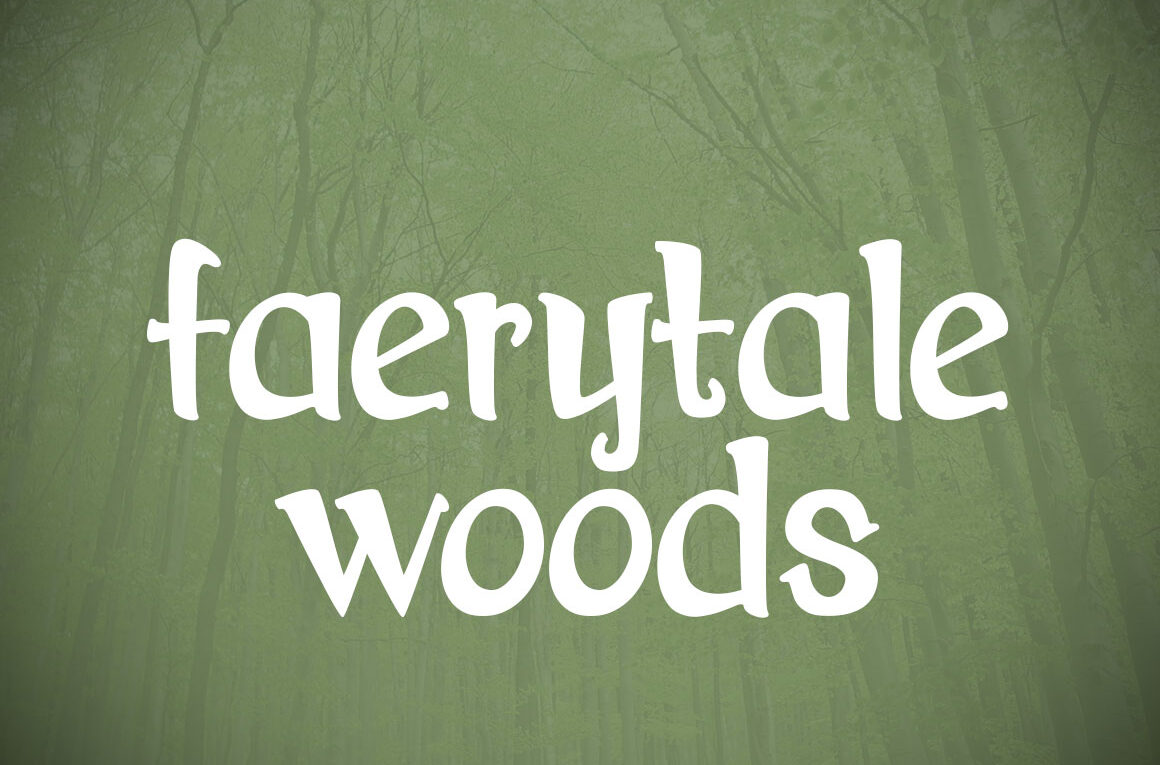
Introducing Faerytale Woods: A Whimsical Storybook-Inspired Font
Are you looking for a font that can transport your readers to a magical world of wonder and enchantment? Look no further than Faerytale Woods, a storybook-inspired font that’s perfect for all your ‘once upon a time’s’. This charming font is designed to evoke the sense of nostalgia and fantasy that comes with classic children’s literature, making it an ideal choice for designers, crafters, and writers who want to add a touch of whimsy to their projects.
The Inspiration Behind Faerytale Woods
Faerytale Woods is a font that’s deeply rooted in the world of children’s literature. Its design is inspired by the classic storybooks of yesteryear, with their intricate illustrations, ornate typography, and sense of wonder. The font’s creator sought to capture the essence of these beloved books and bring it to life in a digital format that’s both versatile and easy to use.
What Makes Faerytale Woods So Special?
So, what sets Faerytale Woods apart from other fonts? Here are just a few features that make it so special:
- Storybook charm: Faerytale Woods has a distinctly storybook feel, with elegant swashes, intricate details, and a sense of whimsy that’s hard to find in other fonts.
- Highly legible: Despite its ornate design, Faerytale Woods is highly legible, making it perfect for use in a variety of projects, from children’s books to invitations and crafts.
- Versatile: Faerytale Woods is a versatile font that can be used in a wide range of projects, from digital designs to print materials.
- Easily customizable: With its range of swashes, alternates, and other features, Faerytale Woods can be easily customized to suit your project’s needs.
Using Faerytale Woods in Your Projects
Faerytale Woods is a font that’s designed to be used in a variety of projects, including:
- Children’s books and educational materials: Faerytale Woods is perfect for creating engaging and interactive children’s books, educational materials, and activity sheets.
- Invitations and party decorations: Add a touch of magic to your party invitations, decorations, and favors with Faerytale Woods.
- Crafts and DIY projects: Faerytale Woods is a great font to use in your craft projects, such as handmade cards, scrapbooking, and other paper crafts.
- Digital designs: Faerytale Woods can be used in digital designs, such as social media graphics, blog headers, and website designs.
Tips for Getting the Most Out of Faerytale Woods
Here are a few tips for getting the most out of Faerytale Woods:
- Experiment with different sizes and styles: Faerytale Woods looks great in a variety of sizes and styles, so don’t be afraid to experiment and find the look that works best for your project.
- Use swashes and alternates to add interest: Faerytale Woods comes with a range of swashes and alternates that can be used to add interest and variety to your text.
- Pair it with other fonts: Faerytale Woods can be paired with other fonts to create a unique and eye-catching look.